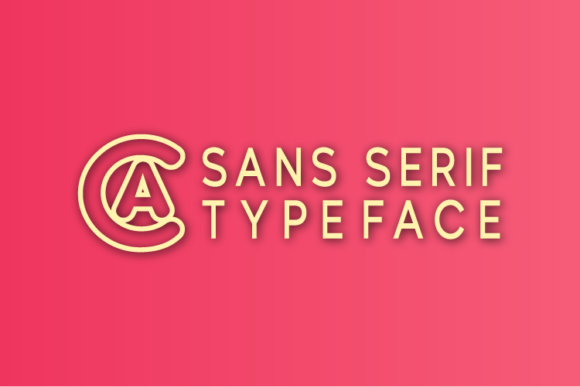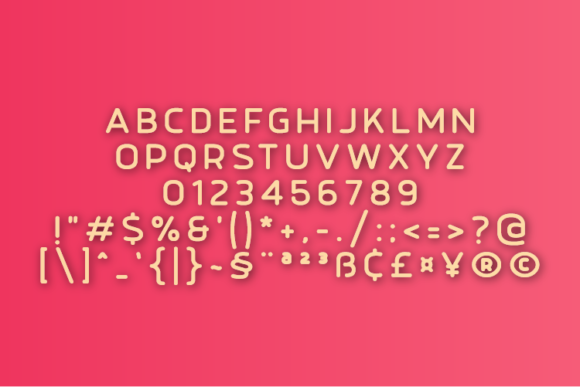
Introducing Etstein Font: The Ultimate Sans Serif for Creative Projects
Are you tired of using the same old fonts for your creative projects? Look no further! Etstein Font is here to revolutionize the way you approach design. This minimal and neat sans serif font is perfect for a wide range of projects, and we’re excited to dive into its features and benefits.
What is Etstein Font?
Etstein is a modern sans serif font that exudes simplicity and elegance. Its clean lines and minimalist design make it an excellent choice for designers and crafters looking for a versatile font to elevate their work. Etstein’s neutral and straightforward aesthetic allows it to seamlessly integrate with various design styles, making it an incredibly adaptable font.
Key Features of Etstein Font
- Minimal and Neat Design: Etstein’s sans serif design is characterized by its simplicity and lack of embellishments, making it perfect for modern and contemporary designs.
- High Versatility: Etstein can be used for a wide range of projects, from branding and advertising to packaging and digital media.
- Ease of Use: Etstein’s clean and straightforward design makes it easy to read and understand, even at small font sizes.
- Excellent Legibility: The font’s carefully crafted letterforms ensure excellent legibility, making it perfect for body text and headlines.
Benefits of Using Etstein Font
So, why choose Etstein Font for your creative projects? Here are just a few benefits you can expect:
- Enhanced Readability: Etstein’s clear and concise design ensures that your message is conveyed effectively, making it perfect for body text and headlines.
- Professional Look and Feel: Etstein’s modern and sleek design gives your projects a professional and polished look, perfect for businesses and individuals looking to establish a strong brand identity.
- Time-Saving: With Etstein, you can easily create stunning designs without spending hours searching for the perfect font.
- Unique and Creative: Etstein’s minimalist design allows your creative ideas to shine, making it perfect for designers and crafters looking to add a personal touch to their work.
How to Use Etstein Font in Your Projects
Etstein Font is incredibly versatile and can be used in a variety of projects, including:
- Branding and Advertising: Use Etstein as a primary font for your brand identity, or as a supporting font to add a touch of modernity to your advertising campaigns.
- Packaging Design: Etstein’s clean design makes it perfect for packaging labels, product descriptions, and instructions.
- Digital Media: Use Etstein in your website designs, social media graphics, and digital marketing materials to add a professional and modern touch.
- Print Materials: Etstein is perfect for print materials such as brochures, flyers, and business cards.
In conclusion, Etstein Font is a game-changer for designers and crafters looking for a versatile and modern sans serif font. Its minimal and neat design makes it perfect for a wide range of projects, from branding and advertising to packaging and digital media. With Etstein, you can elevate your creative ideas and add a professional touch to your work. So why wait? Add Etstein Font to your creative arsenal today and notice the difference it makes!